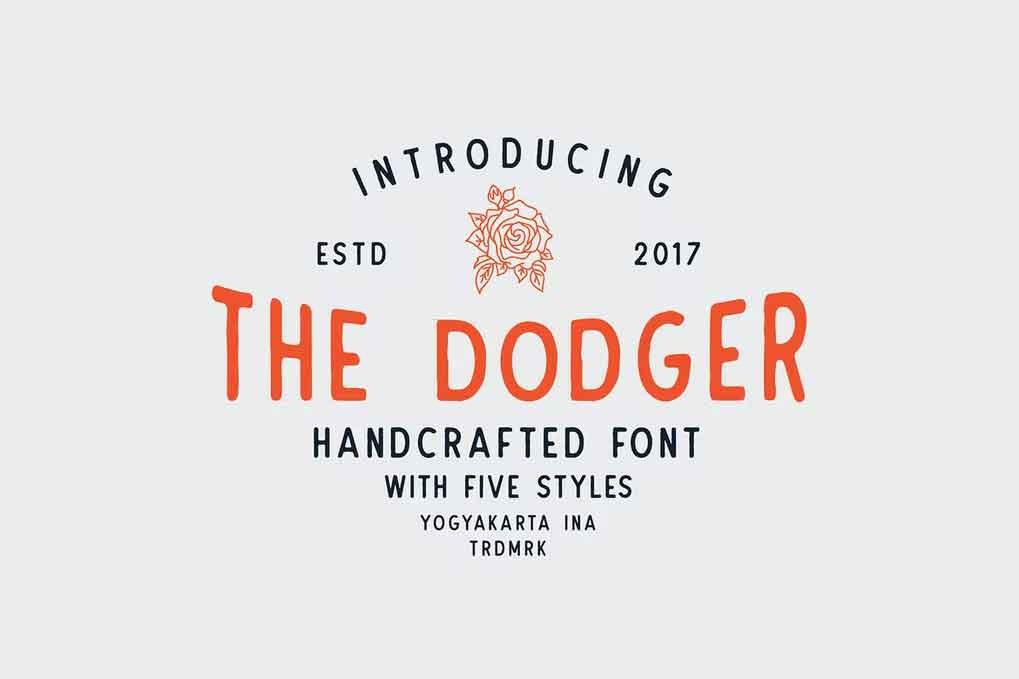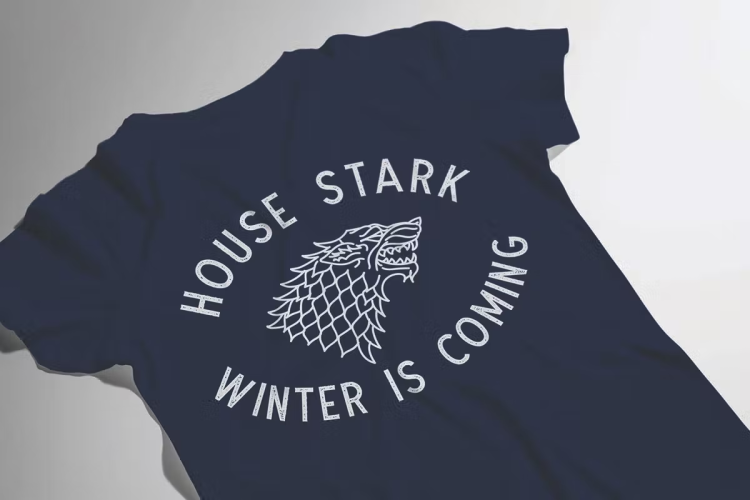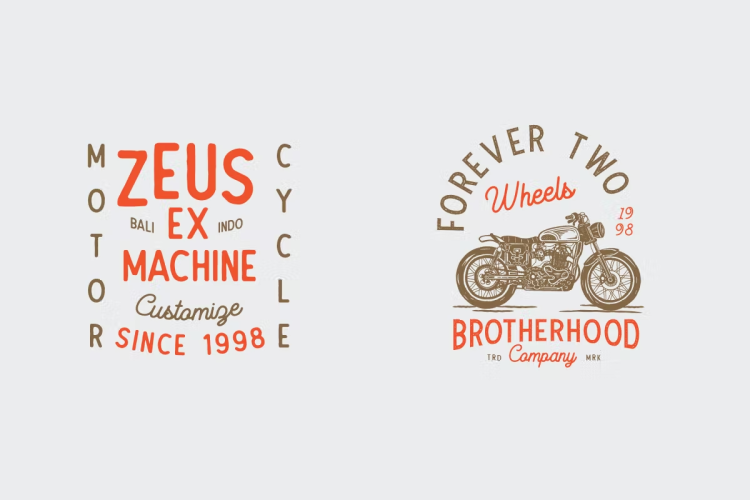
The Dodger Font
The Dodger is a family of FIVE sans serif font designed with carefully handcrafted. Also suitable for branding, T-shirt, Wedding Invitation, Vintage Design, Logotype, and any project. With five style make you easier to design everythings, and a script bonus to make better design.
The Dodger Font is a Sans Serif Fonts font that brings a professional and versatile look to your projects. The Dodger is a family of FIVE sans serif font designed with carefully handcrafted.